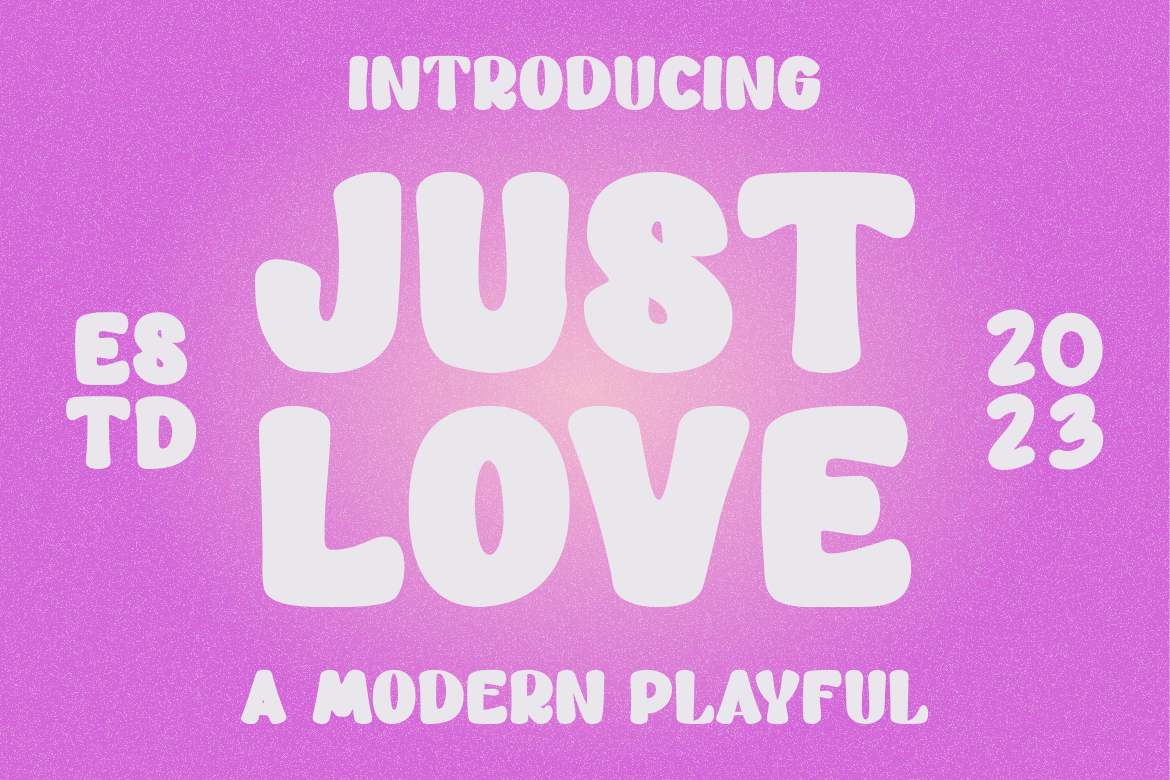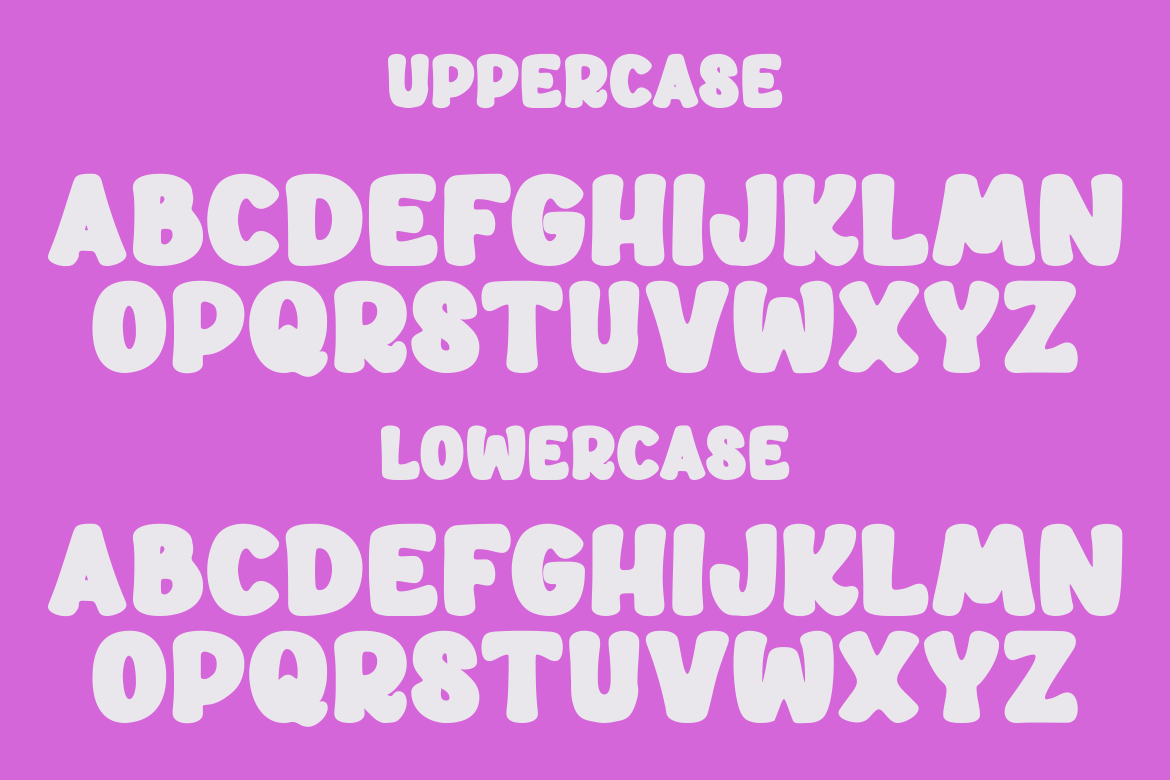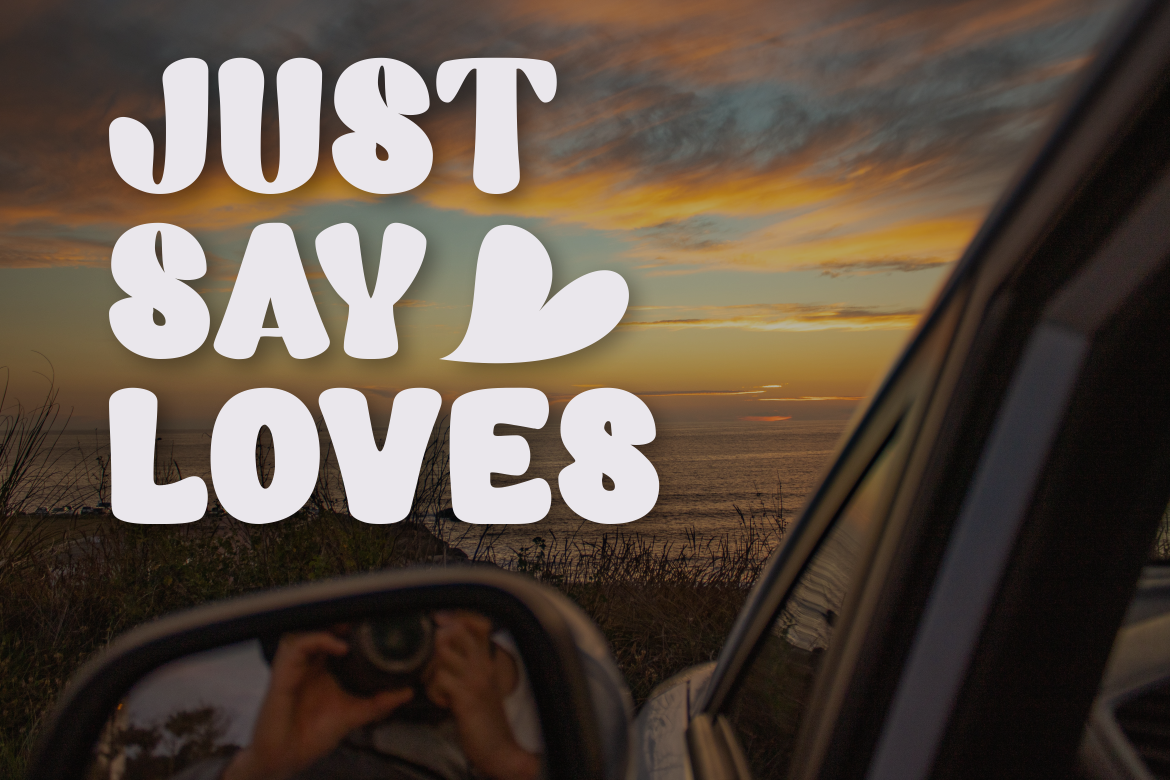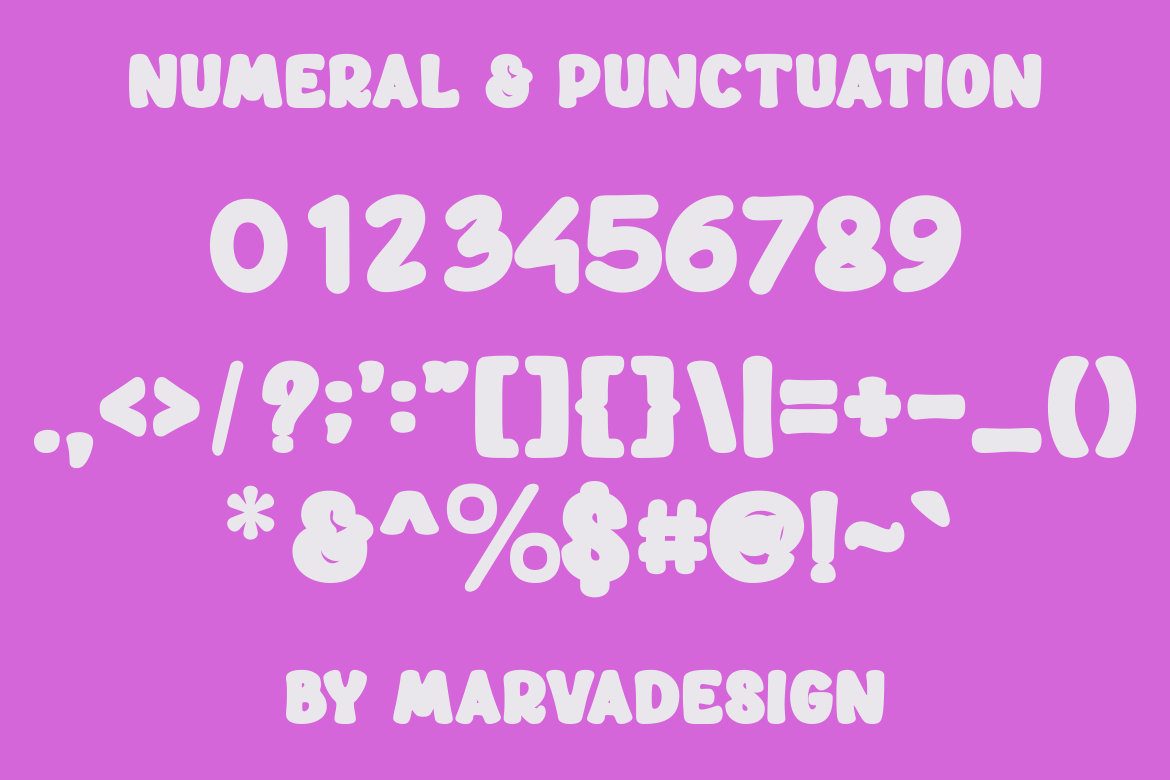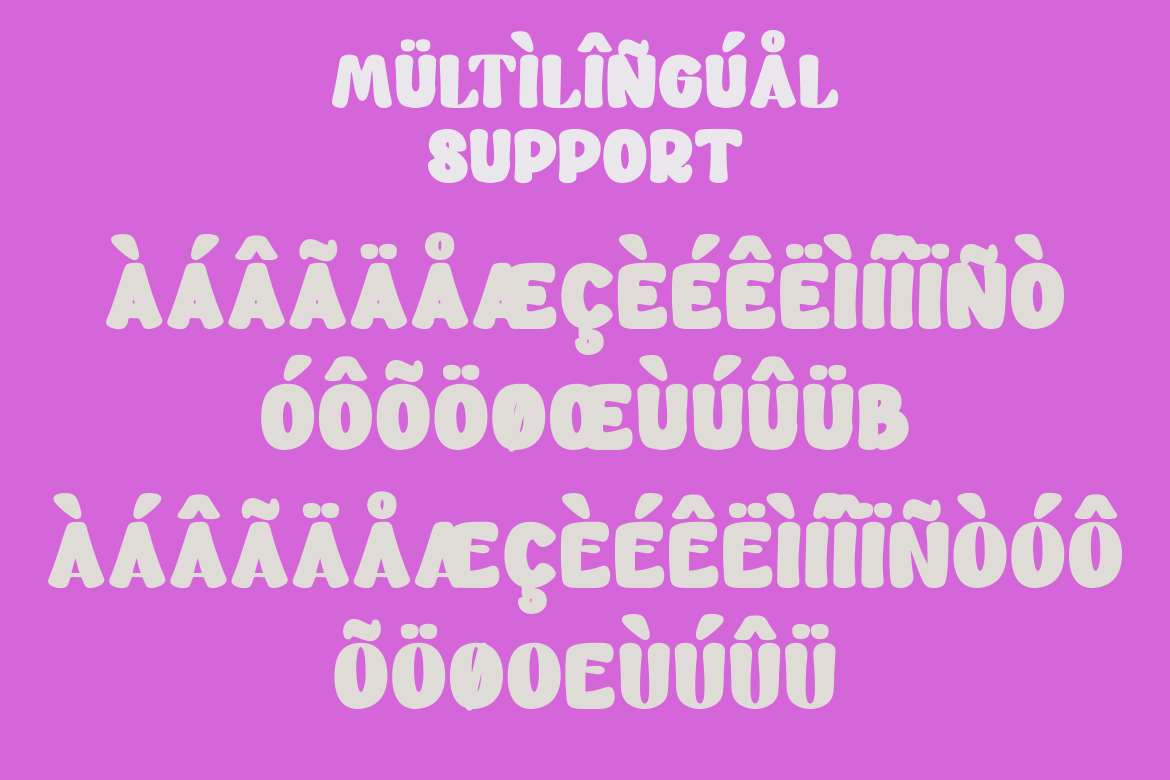
MarketplaceFontsJust Love - A Modern Playful Font
Introducing our new product JUST LOVE Font - Modern Font JUST LOVE Font** - Modern Font is a bold and authentic display font. The font is suitable for any branding project like logo,Template , Product and many more. outstanding in a wide range of contexts.